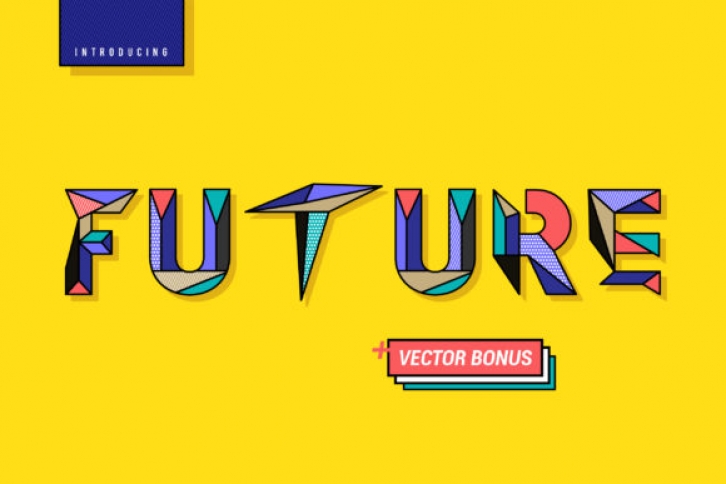
Future is an incredibly unique and interesting display font. Masterfully designed to become a true favorite, this font has the potential to bring each of your creative ideas to the highest level!